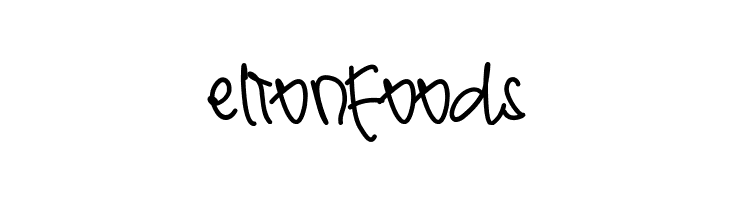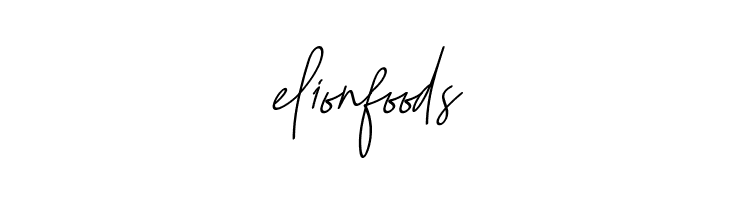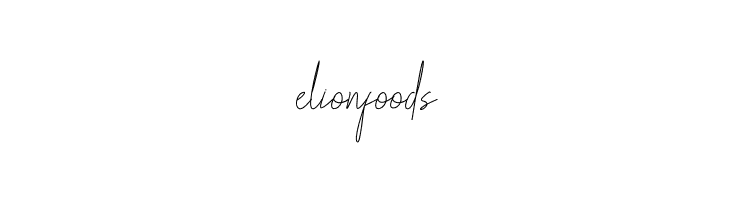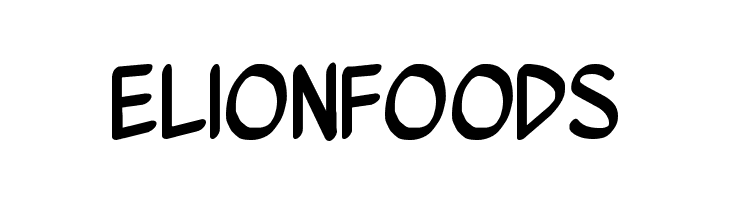
A playful, casual handwritten font with fluid, organic strokes.
A fluid, cursive handwritten font with an elegant and personal touch.
A graceful and flowing handwritten font with thin, delicate strokes.
A modern, handwritten font with fluid strokes and a brush-like texture.
A thin, handwritten font with a casual and flowing style.
A bold, expressive handwritten font with dynamic strokes and a personal touch.
A bold, expressive handwritten script with dynamic strokes.
A playful, bold, and informal handwritten font with rounded letterforms.
A casual, handwritten font with a playful and approachable style.
A playful, casual handwritten font with smooth, rounded edges.